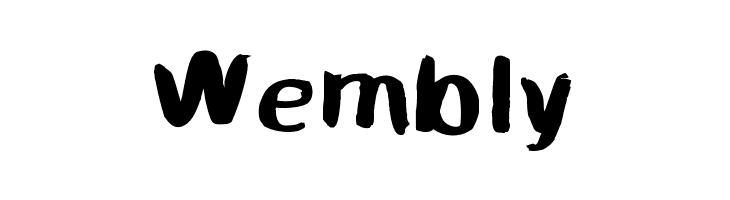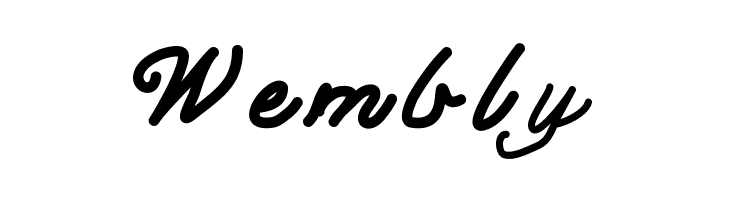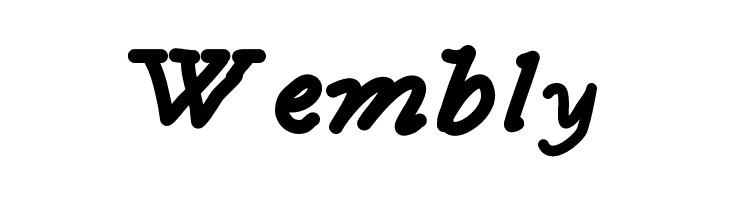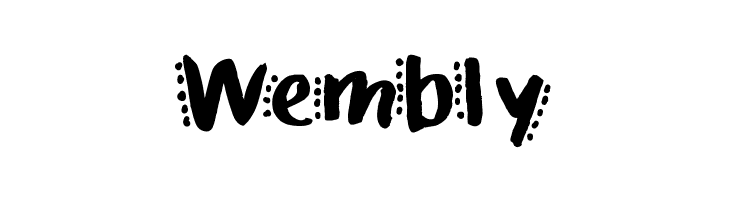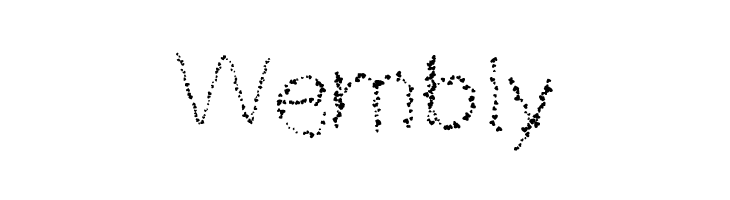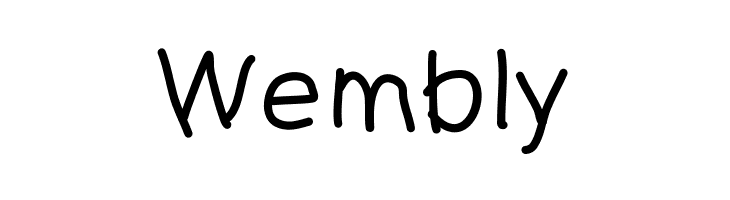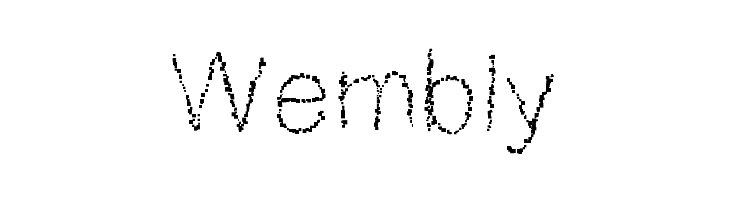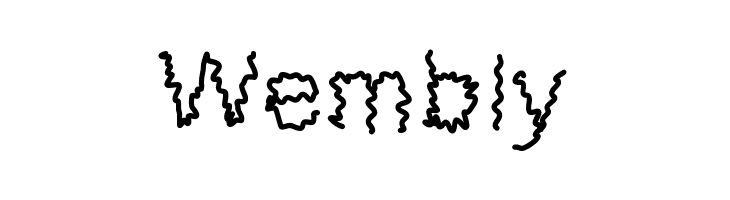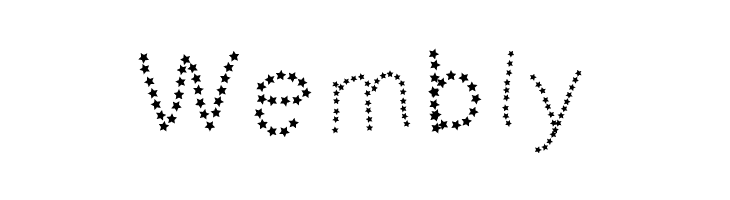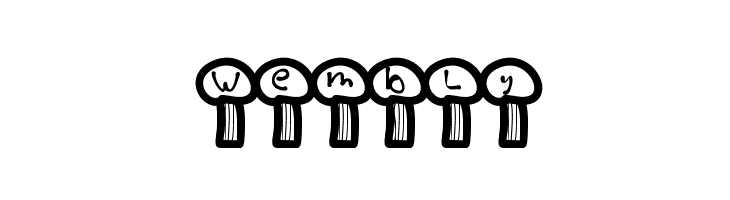
An elegant script font with flowing, cursive letterforms and intricate flourishes.
An elegant script font with flowing, cursive style and intricate loops.
A bold, structured font with a modern, geometric style.
A bold, geometric font with sharp angles and a modern appearance.
A modern, geometric font with clean lines and a distinct angular design.
A bold, geometric font with strong lines and a modern aesthetic.
A bold, geometric font with strong, angular lines and a modern aesthetic.
A bold, hand-drawn style font with a playful, chalk-like appearance.
A classic, elegant script font with flowing, cursive letters.
A playful, bold script font with a dynamic and whimsical style.
A bold, hand-drawn font with dotted accents, perfect for playful and lively designs.
A playful font made entirely of heart shapes, perfect for romantic or whimsical designs.
A textured, stippled font with a handcrafted, artistic feel.
A playful, wavy font resembling silly string with consistent stroke thickness.
A whimsical decorative font made entirely of star shapes.
A playful, tree-themed font with bold, rounded characters.
A graceful and flowing script font with elegant curves and consistent stroke width.
A bold, expressive script font with fluid strokes and elegant slant.
A bold, distressed font with a gritty, urban aesthetic.